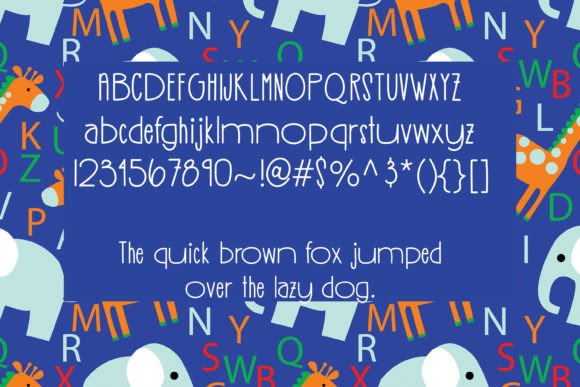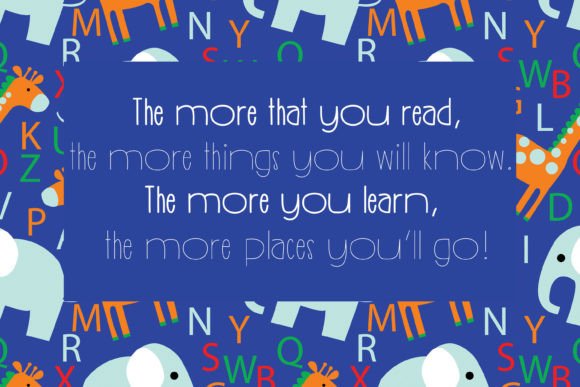
Introduction to Mister Olliver Font
Mister Olliver is a youthful sans serif font perfect for all your kid-friendly design needs.
This font is great for greeting cards, invitations, posters, t-shirt designs, and more .
Key Features of Mister Olliver Font
Why Choose Mister Olliver Font?